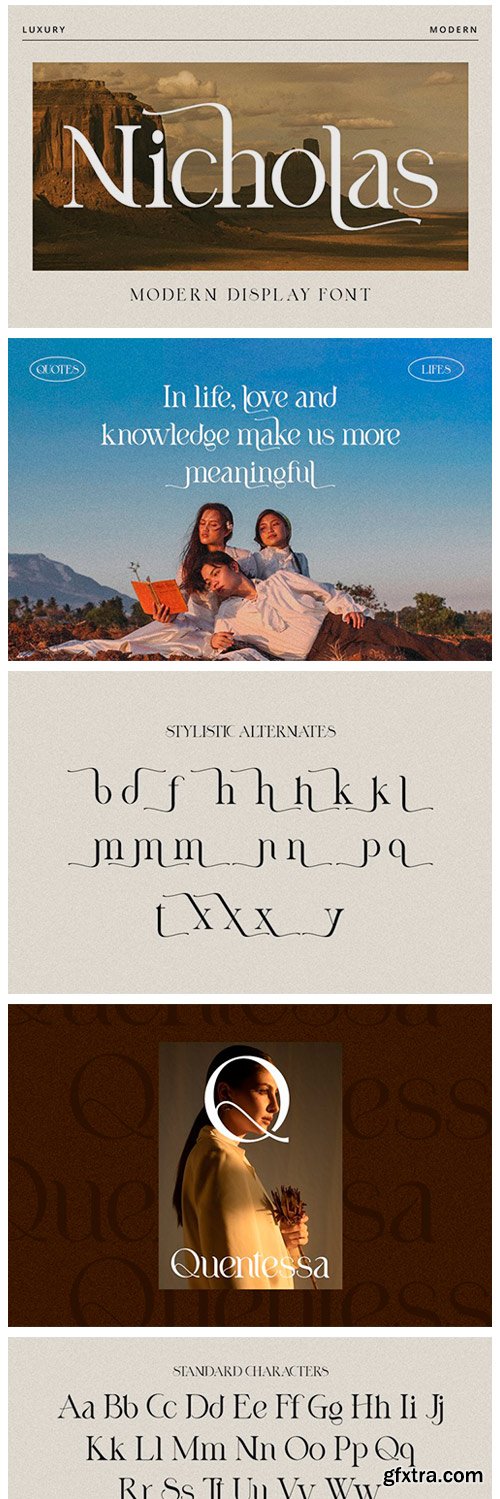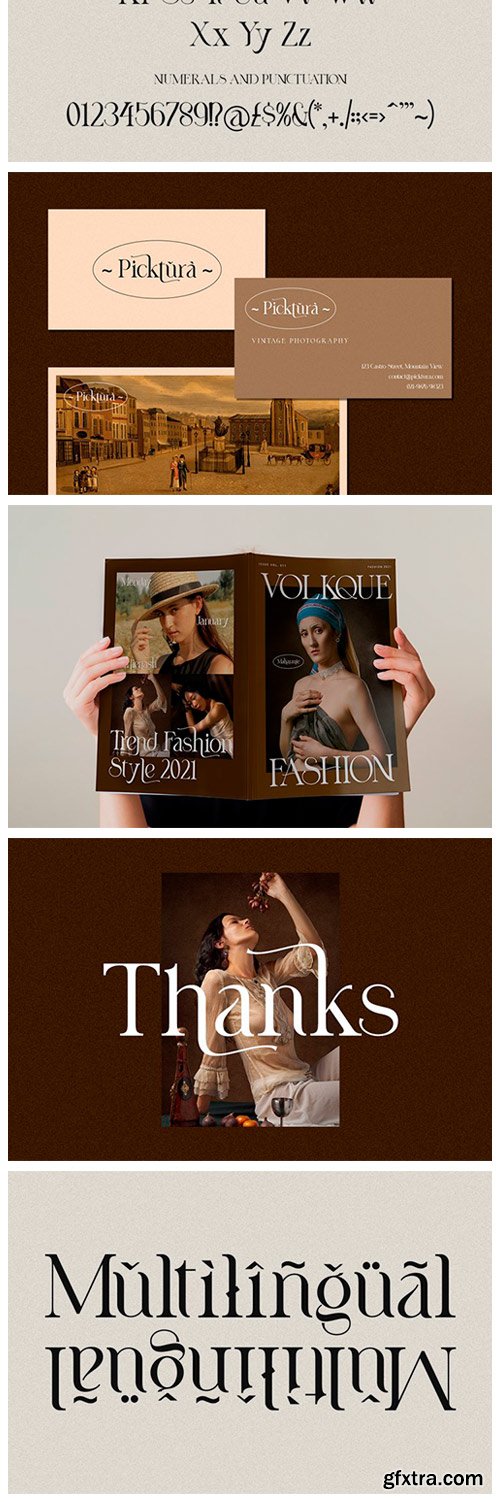
FontBundles - Nicholas // Hand-drawn Display Font 1144756
Nicholas is a simple and casual serif font with an undeniably clean feel. With its neat and beautiful arrangement of letters, this typeface will look outstanding in both formal and non-formal designs. Nicholas is perfect for wedding elegant invitation cards, beauty and fashion package designs, books designs, magazines typographys, packaging, branding and more other creative projects.